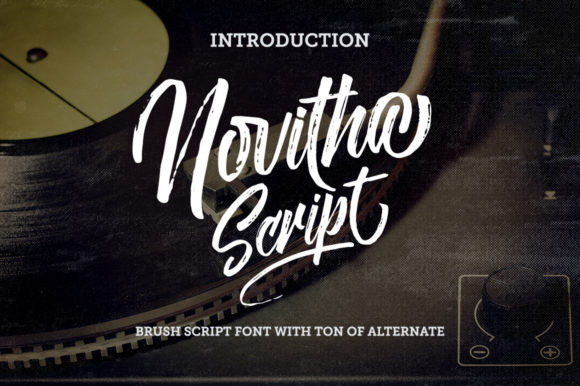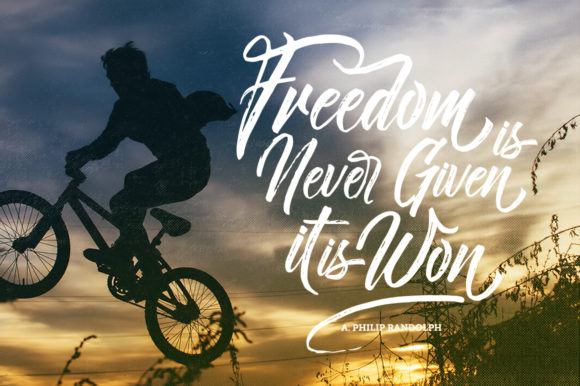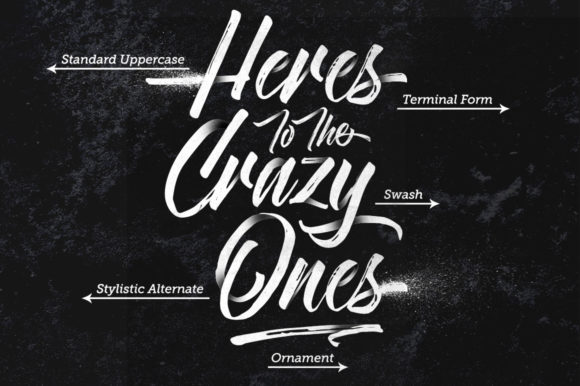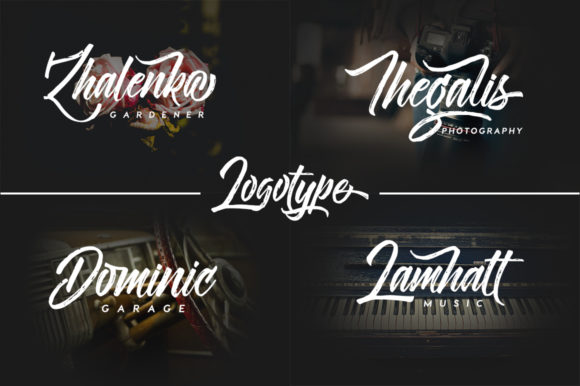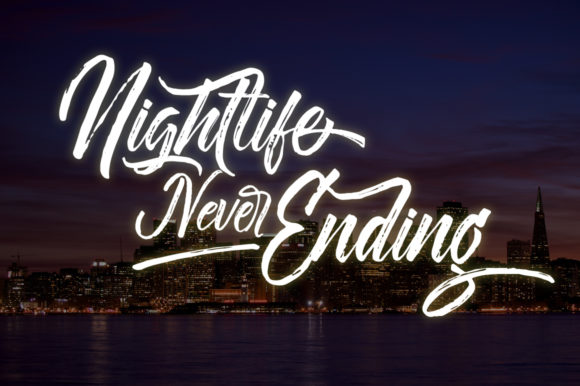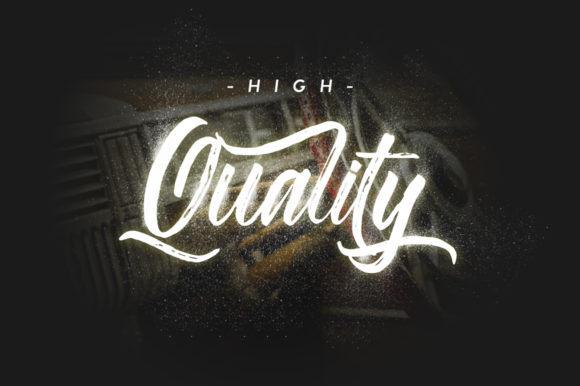
HomeScript FontsNovitha Font Script Fonts Novitha Font FacebookXPinterestWhatsApp Novitha Font Poster 2 Novitha Font Poster 3 Novitha Font Poster 4 Novitha Font Poster 5 Novitha Font Poster 6 About Novitha Font Novitha is a stunning handwritten font with a brush feel. It will turn any design project into a true stand out! DOWNLOAD ON CREATIVE FABRICAThis font is sold and delivered by Creative Fabrica. Font Canyon may earn a commission if you buy through this link. People also explored Clatter Sparkle Font Coffee Drink Font Rosalineo Medium Font Fonzella Font Arbhie Font Sophier Rotties Duo Font Wahlgross Font Traxtor Font Holland Font 300 0 TagsNovitha Font Previous articlePanhitra Family FontNext articleAgistha Font LEAVE A REPLY Cancel reply Comment: Please enter your comment! Name:* Please enter your name here Email:* You have entered an incorrect email address! Please enter your email address here Website: Save my name, email, and website in this browser for the next time I comment. Personal Use Free Ennobled Pet Personal Use Free Read more about this font Cinderella Personal Use Free Read more about this font Mandarins Personal Use Free Read more about this font Historise Personal Use Free Read more about this font BLOG Top 10 Handwritten Fonts That Elevate Your Designs Top 10 Handwritten Fonts That Will Elevate Your Designs Handwritten fonts bring a warm, personal touch to every creative project. Whether you're designing logos, invitations,... Top 7 Google Fonts Alternatives for Faster and Privacy-Friendly Web Design (2025) Modern Sans-Serif Fonts That Brands Love in 2025 Using Fonts in Digital Marketing: Tips to Strengthen Your Brand Identity